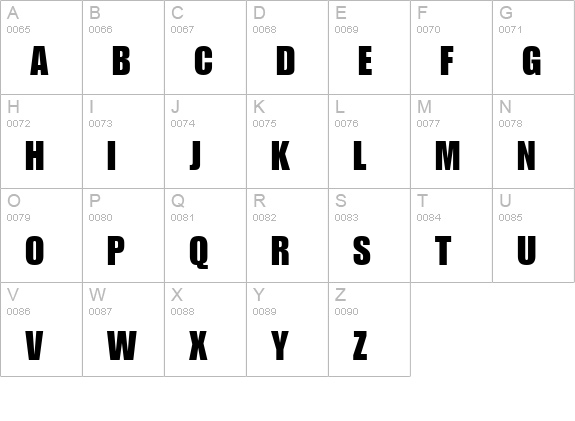
Short Haul SSi Font Details
Short Haul SSi is a versatile and modern font that is perfect for all your design needs. Whether you're creating a logo, branding materials, or a website, this font will bring a touch of sophistication and professionalism to your work. With its clean lines and balanced proportions, Short Haul SSi exudes a sense of elegance and refinement. One of the best things about Short Haul SSi is that it is free to download. This means that you can use it in your personal and commercial projects without worrying about any licensing fees. It's a font that truly embodies the spirit of creativity and accessibility. Downloading Short Haul SSi is quick and easy. Simply head over to FontsMarket.com, where you'll find a wide range of free fonts to choose from. Once you've downloaded and installed Short Haul SSi, you'll be amazed at the versatility and beauty of this font. Whether you're a professional designer or a hobbyist, Short Haul SSi is a font that will elevate your work to the next level. Its clean and modern aesthetic will make your designs stand out from the crowd, while its legibility ensures that your message is always clear and easy to read. So why wait? Download Short Haul SSi for free today at FontsMarket.com and see the difference it can make in your design projects. Embrace the elegance and versatility of this font and let your creativity soar.